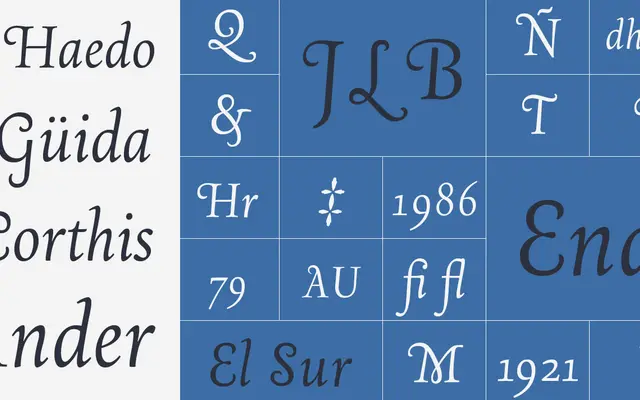
Borges Poema
A contemporary chancery cursive by Alejandro Lo Celso, designed for dignified titling, invitations and short poetic texts requiring a delicate, classical atmosphere.
Part of the broader Borges type family from Pampatype, this single-style chancery draws on old-style Garalde tradition with features including standard ligatures, oldstyle figures and standard editorial glyphs. It is best suited to headings, titling and short literary or poetic settings where elegance takes precedence over extended text use. Coverage is Basic Latin only, making it a specialist display addition rather than a workhorse text face.
Classified by the foundry as Garalde and chancery, Borges Poema is a contemporary chancery cursive in the old-style tradition, designed for delicate titling and short texts requiring elegance.